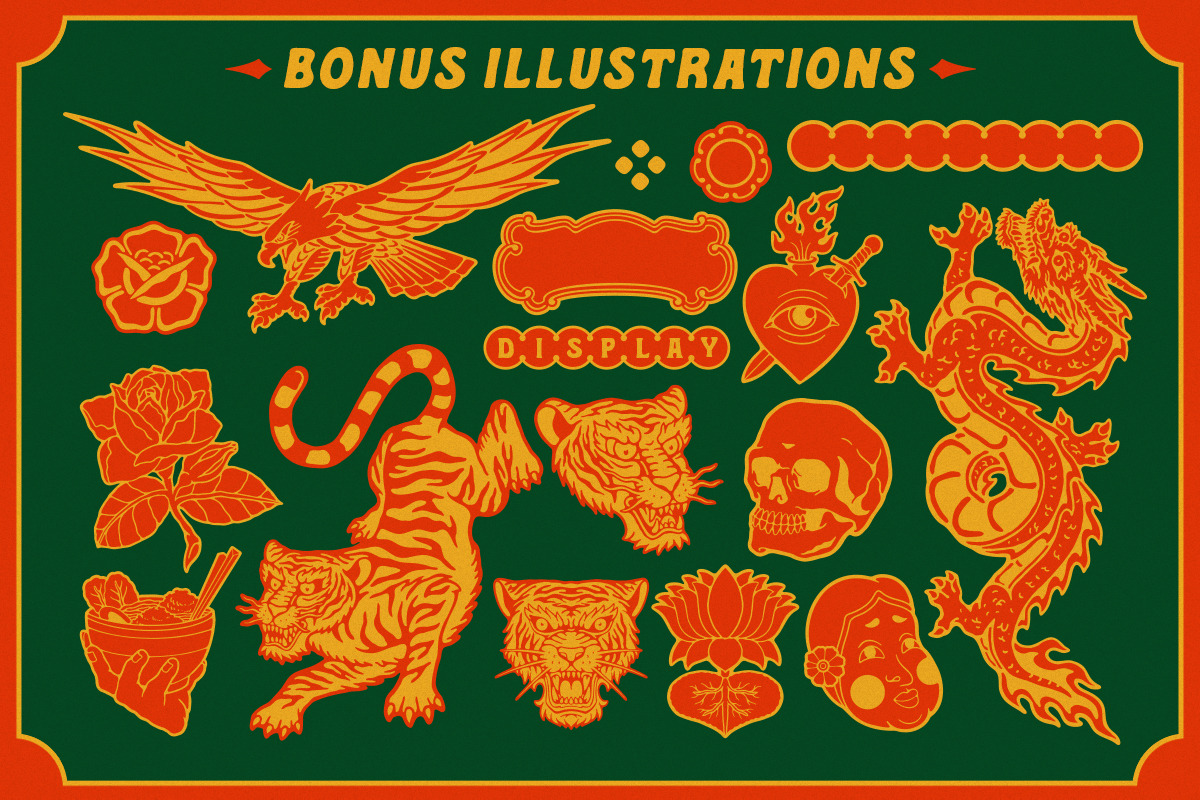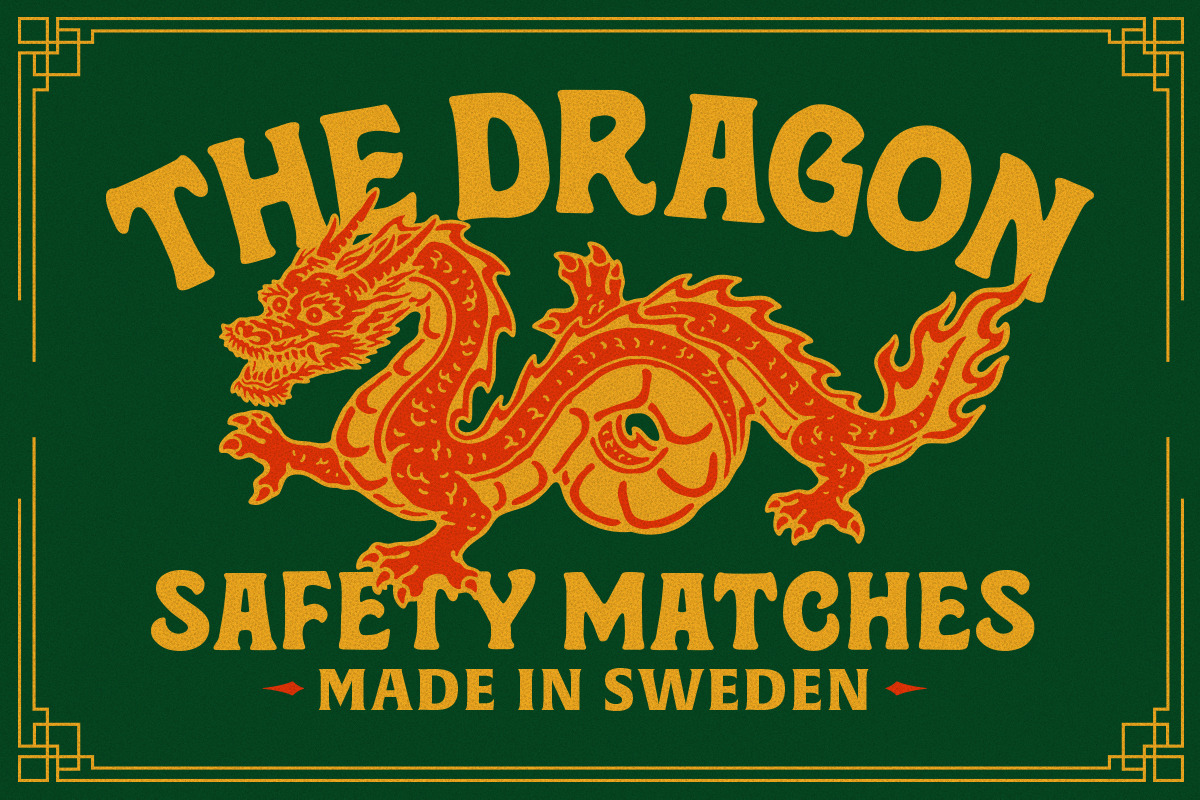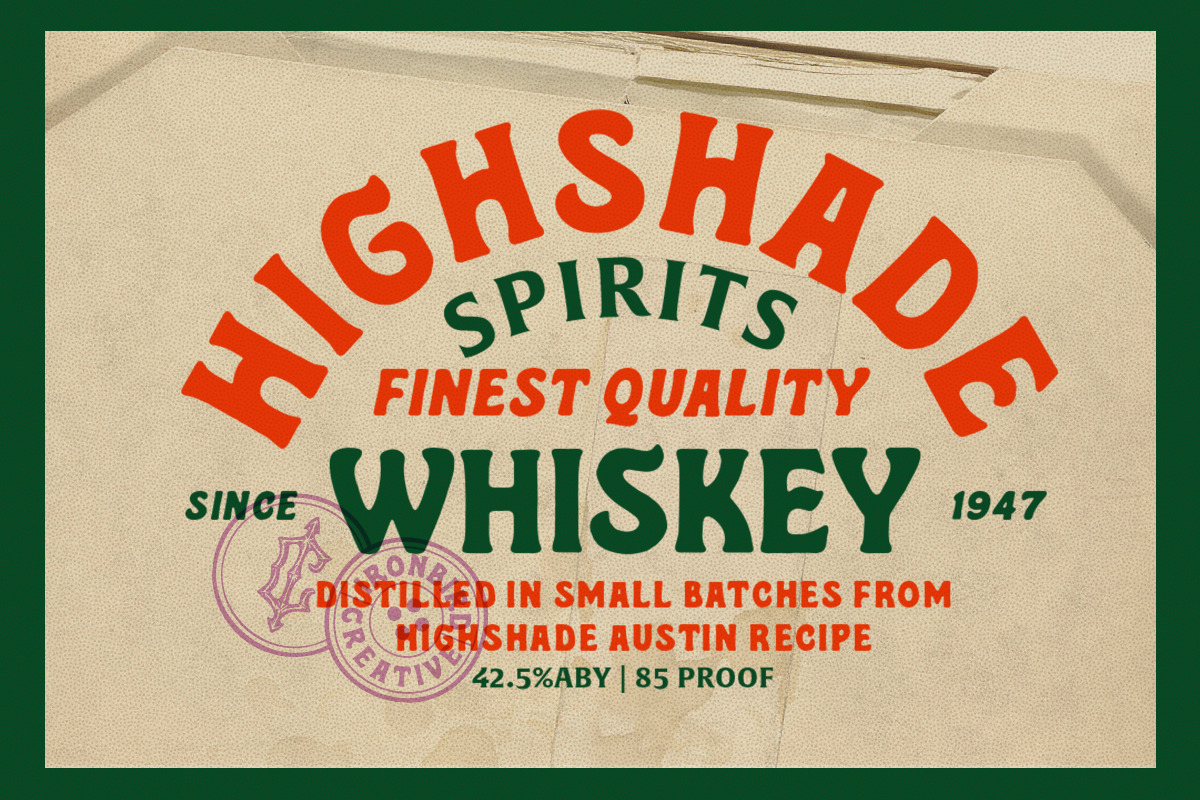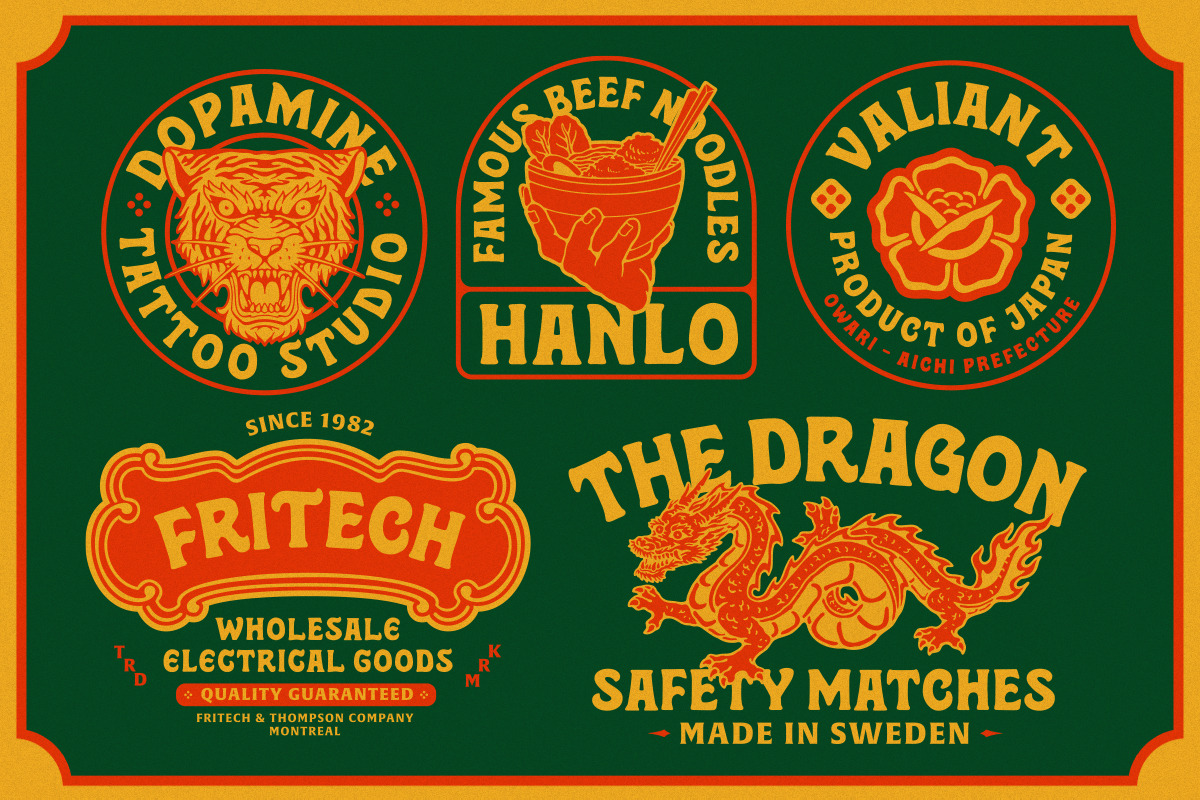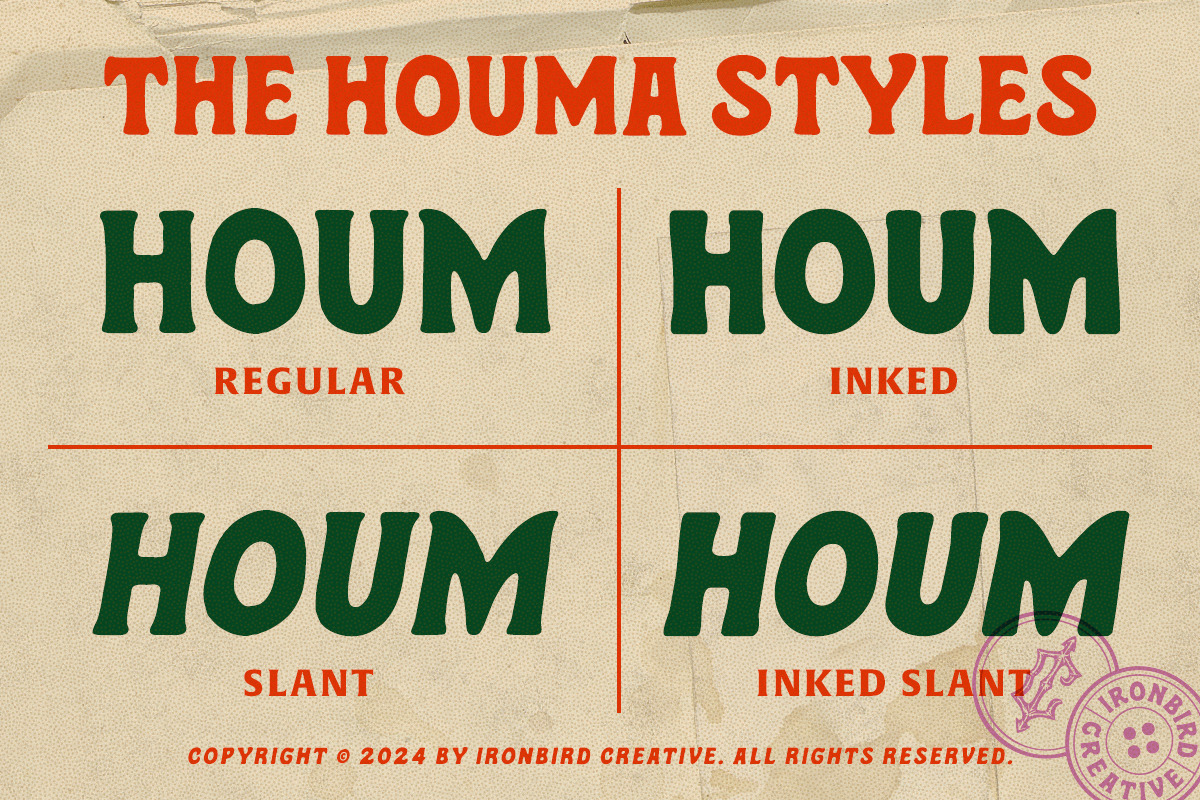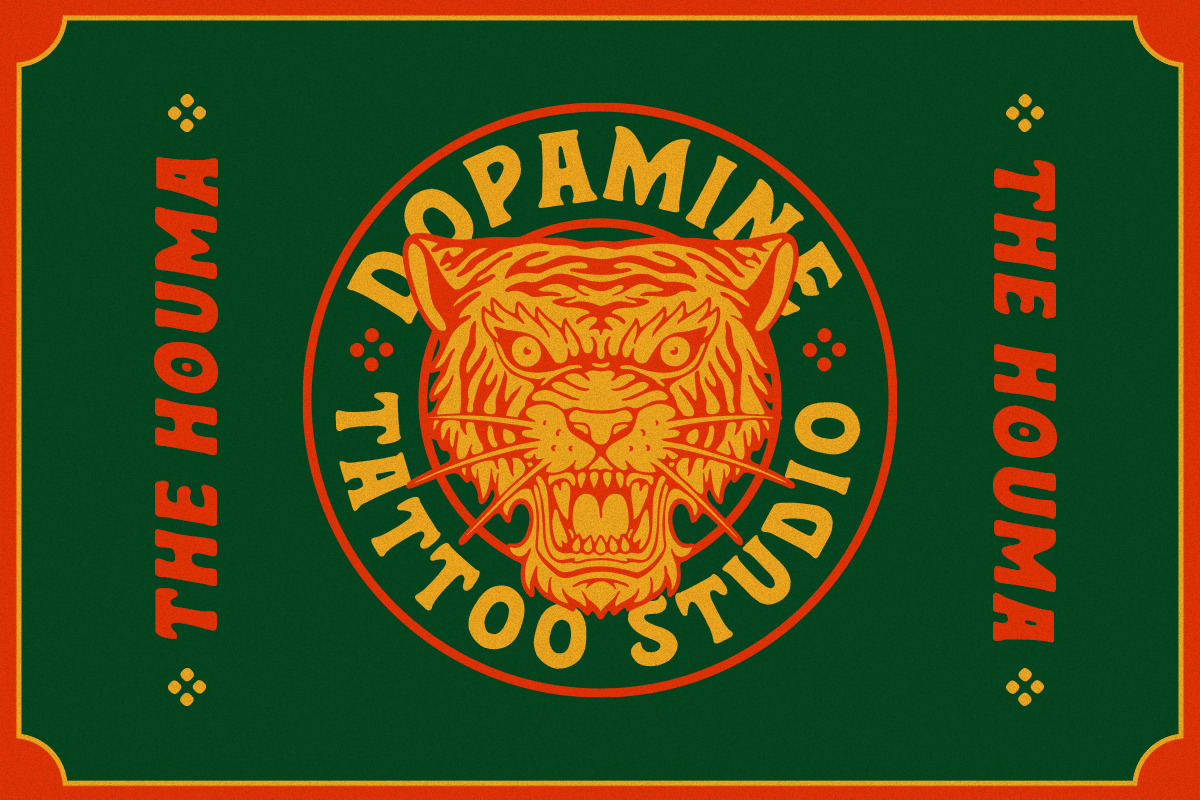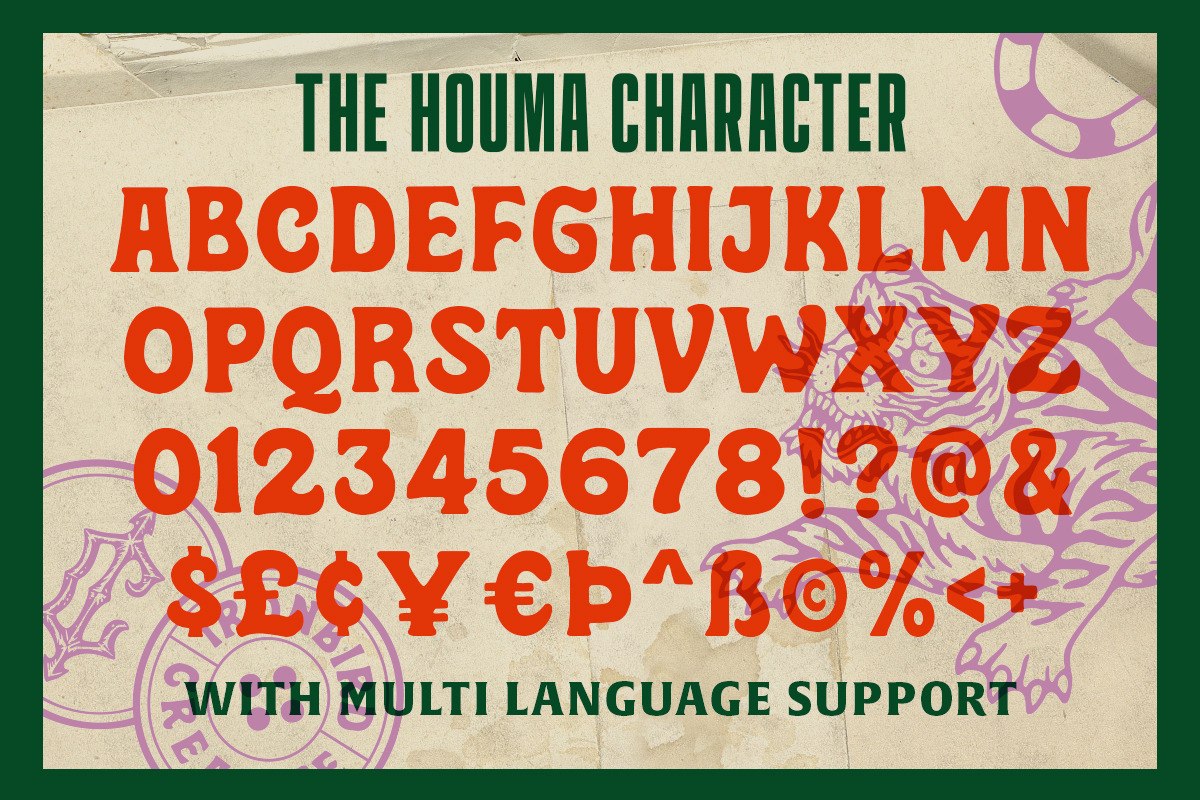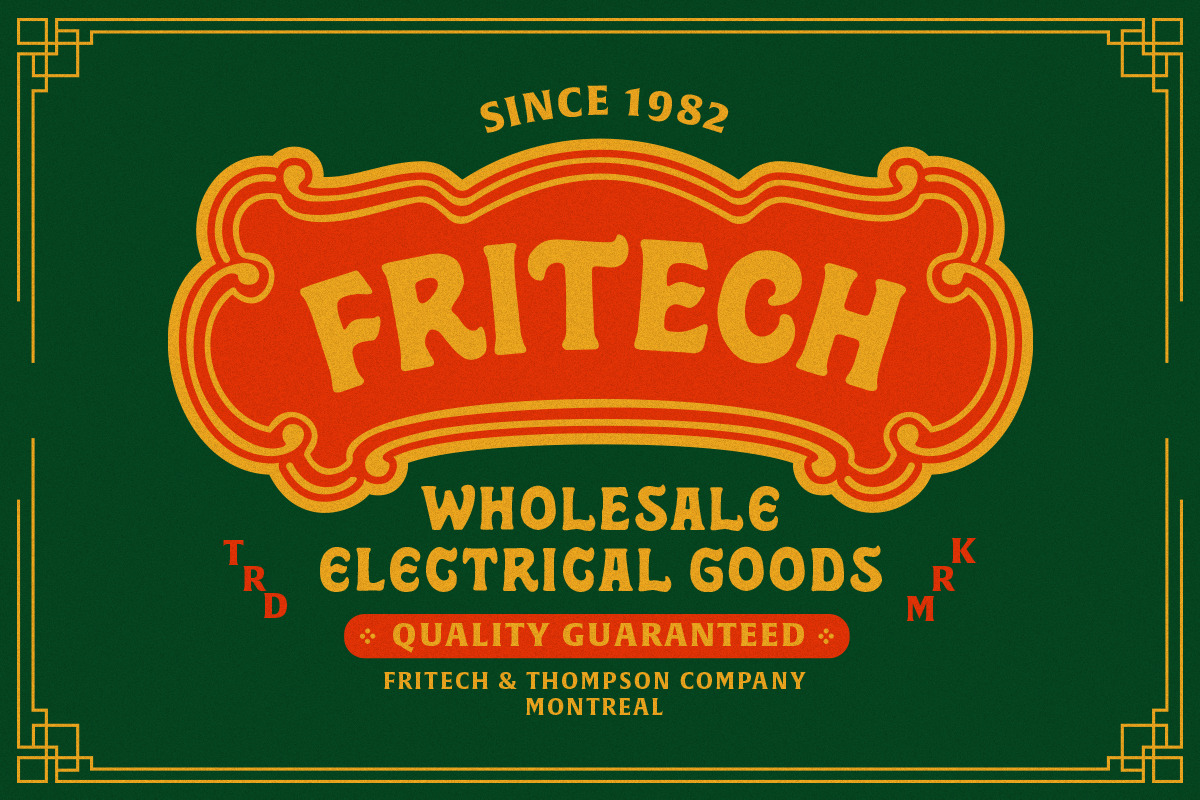
The Houma & Extras!
The Houma is a bold serif organic hand-drawn typeface. This item consist of 5 FONTS in various styles which you can play around with it and also come with EXTRA ILLUSTRATION & PREMADE LOGO to make better design!